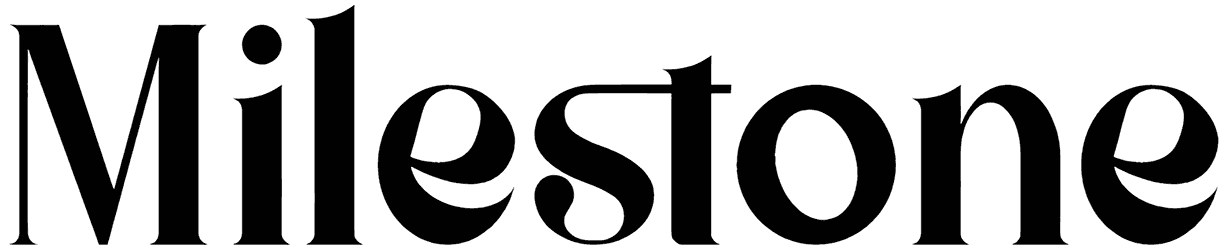
Milestone Font
Milestone is a typeface that has stood the test of time, and its distinctive style draws the eye immediately. You should have this serif font in your library even if your collection is complete.
Because its design method differs from other types, it can help you equally in digital and printed designs. Using this official fashion font, you can attract more audience to your website and make your posters, ads, and letters appear more official.